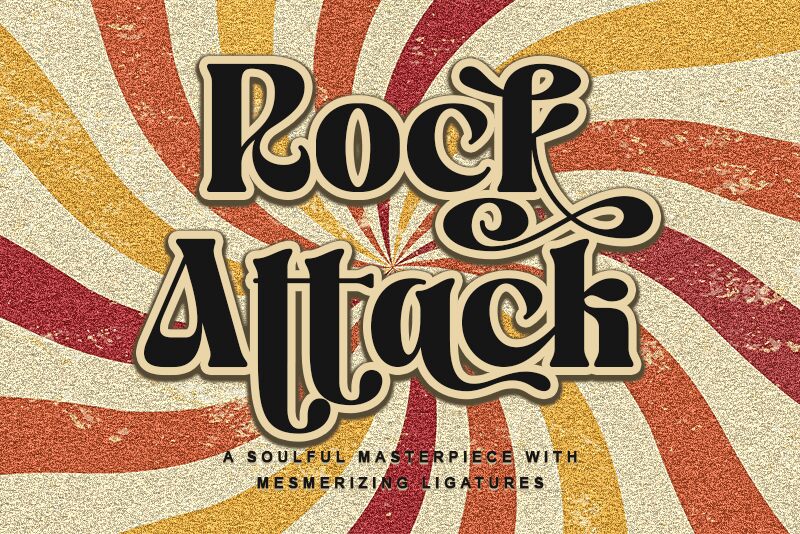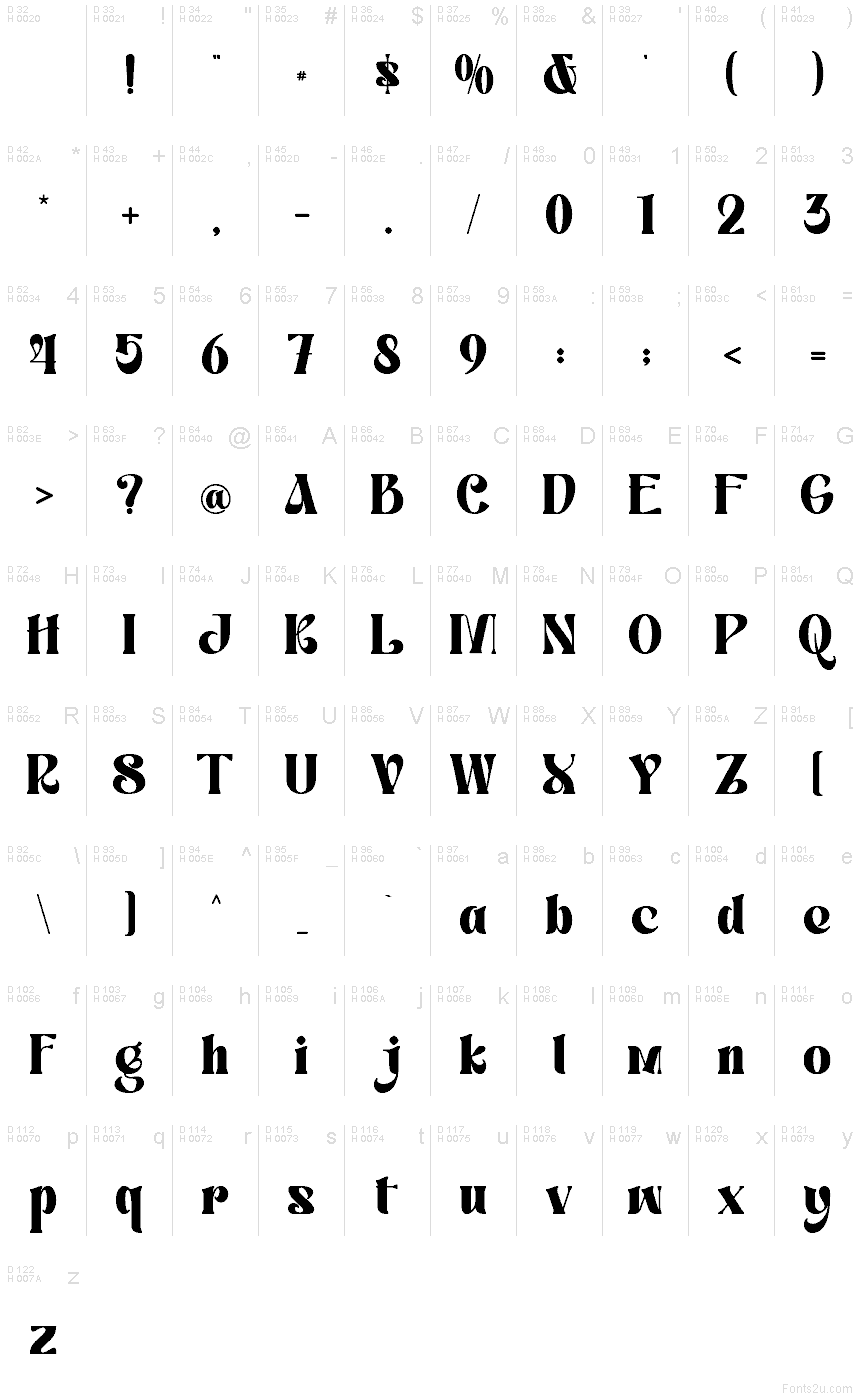
Rock Attack font by Letterara is a free retro display typeface that channels bold gig posters, record sleeves, and smoky club marquees. Thick, inky strokes, swoopy curves, and those sharp, guitar-pick shapes inside the letters give it a loud, slightly rebellious attitude, while still feeling polished and readable. There’s a nice bounce in the rhythm of each word, so your titles feel like they’re moving—almost like a band logo caught mid-riff.
Using Rock Attack, your headlines instantly pick up that vintage rock energy for concert posters, album covers, bar menus, festival branding, apparel graphics, and bold social media promos. This free font loves to be big, so let it dominate the top of your layout and pair it with a clean, neutral sans serif for supporting text. It’s the kind of typeface that turns even a simple word into a statement banner.